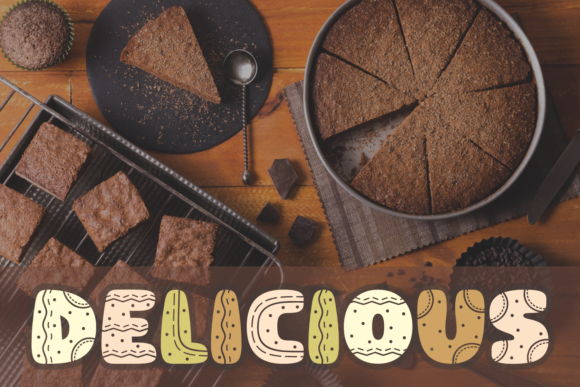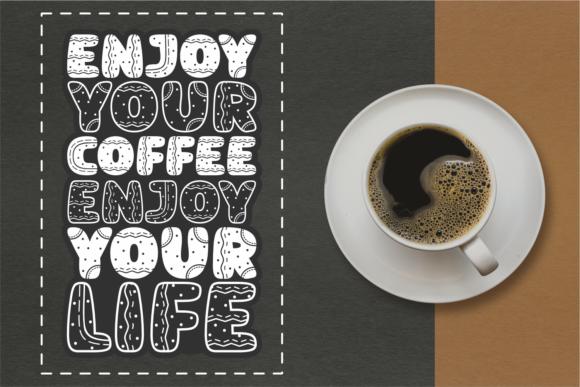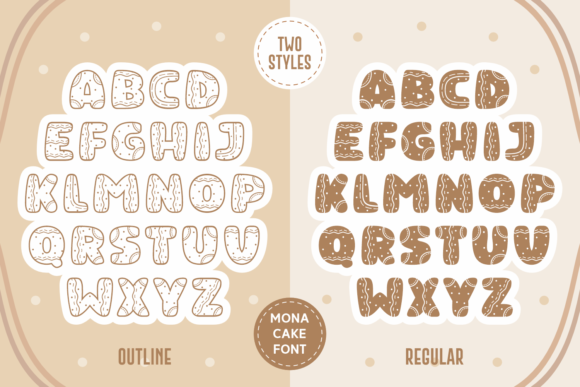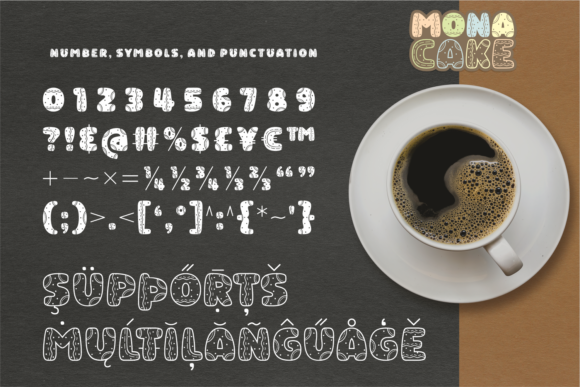
Introduction to Mona Cake Font
Mona Cake is a delicious-looking decorative font.
Its bold and cookie-like characters will perfectly complement a bakery logo, restaurant decor, cafe logos, menus, Christmas designs, or anything children-related .
Key Features of Mona Cake Font